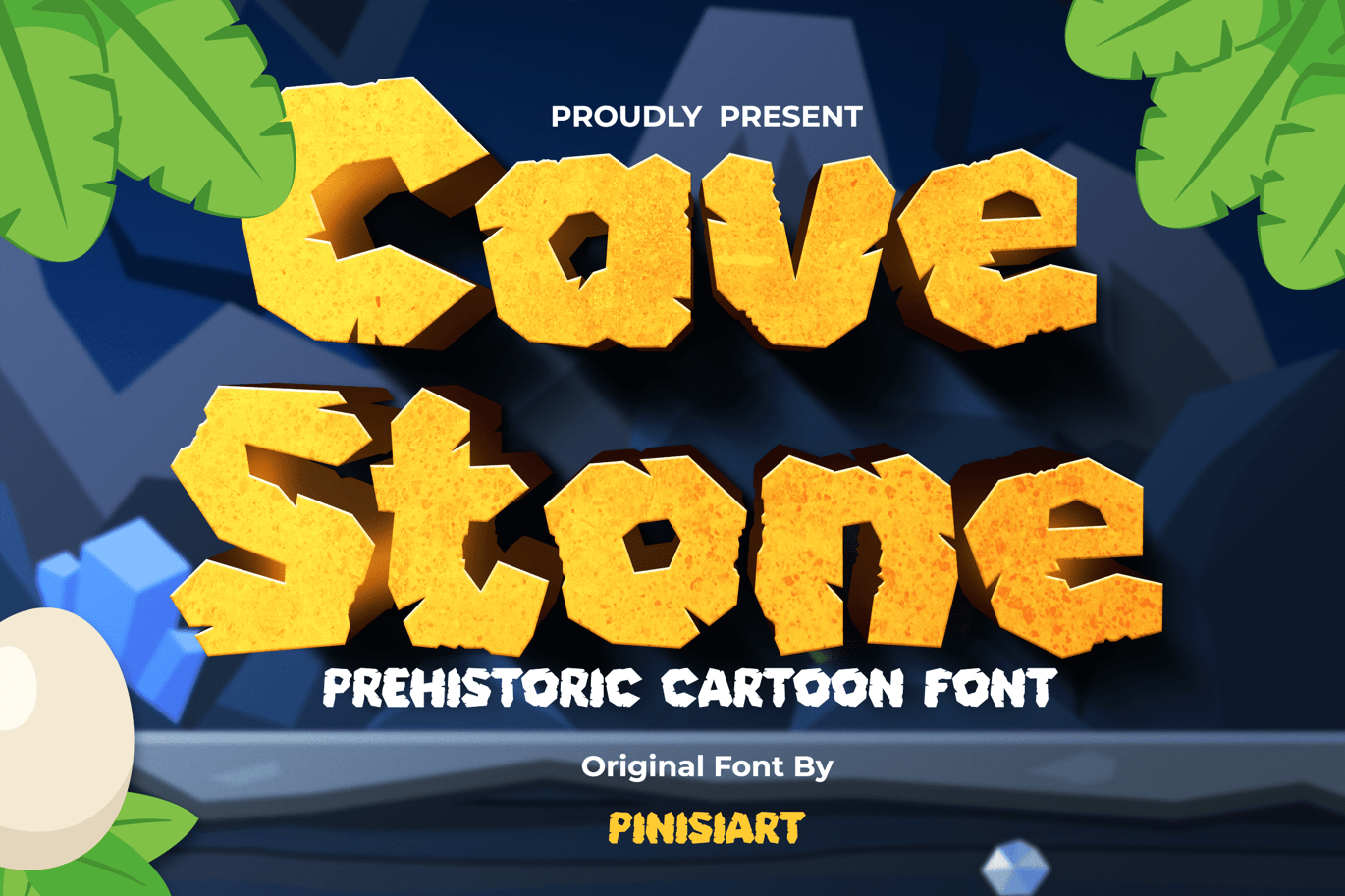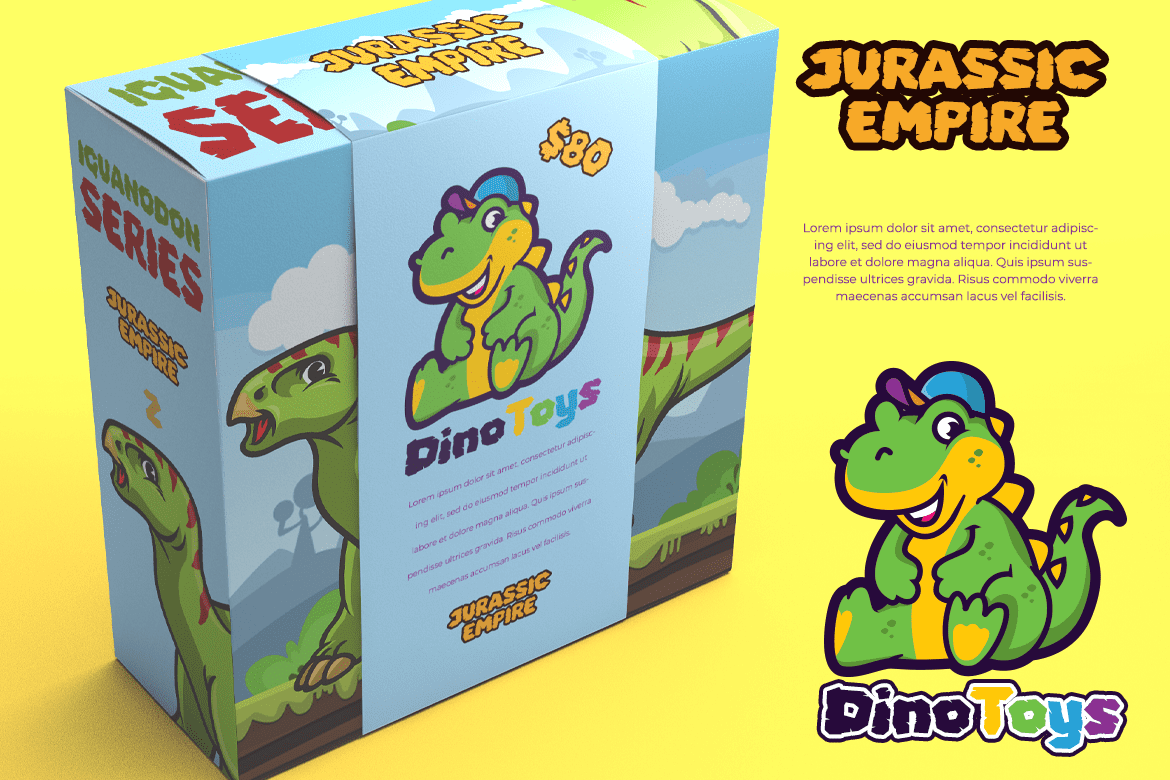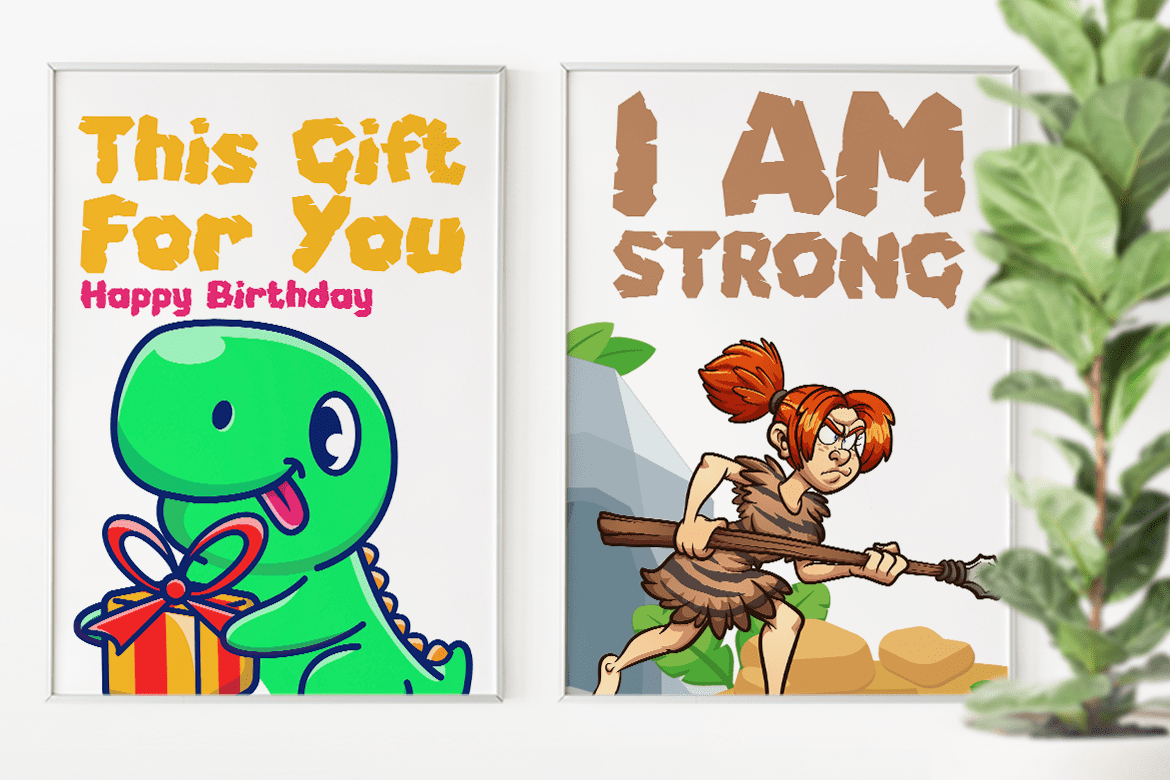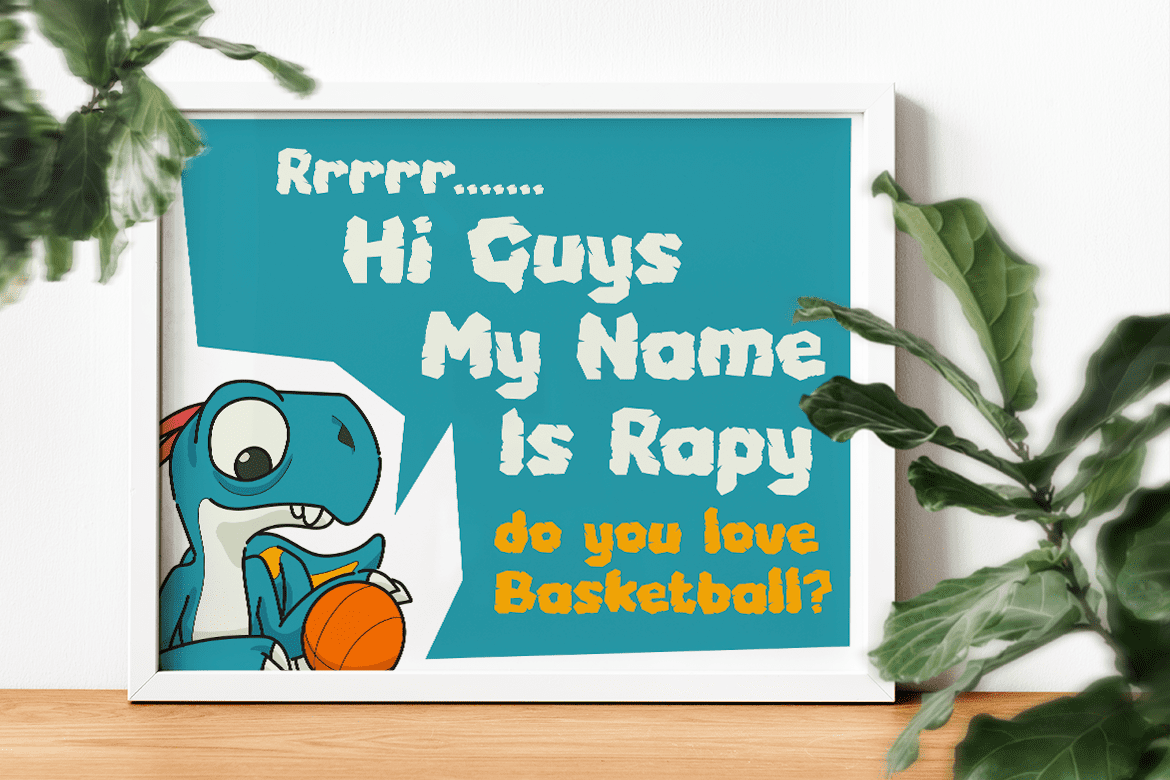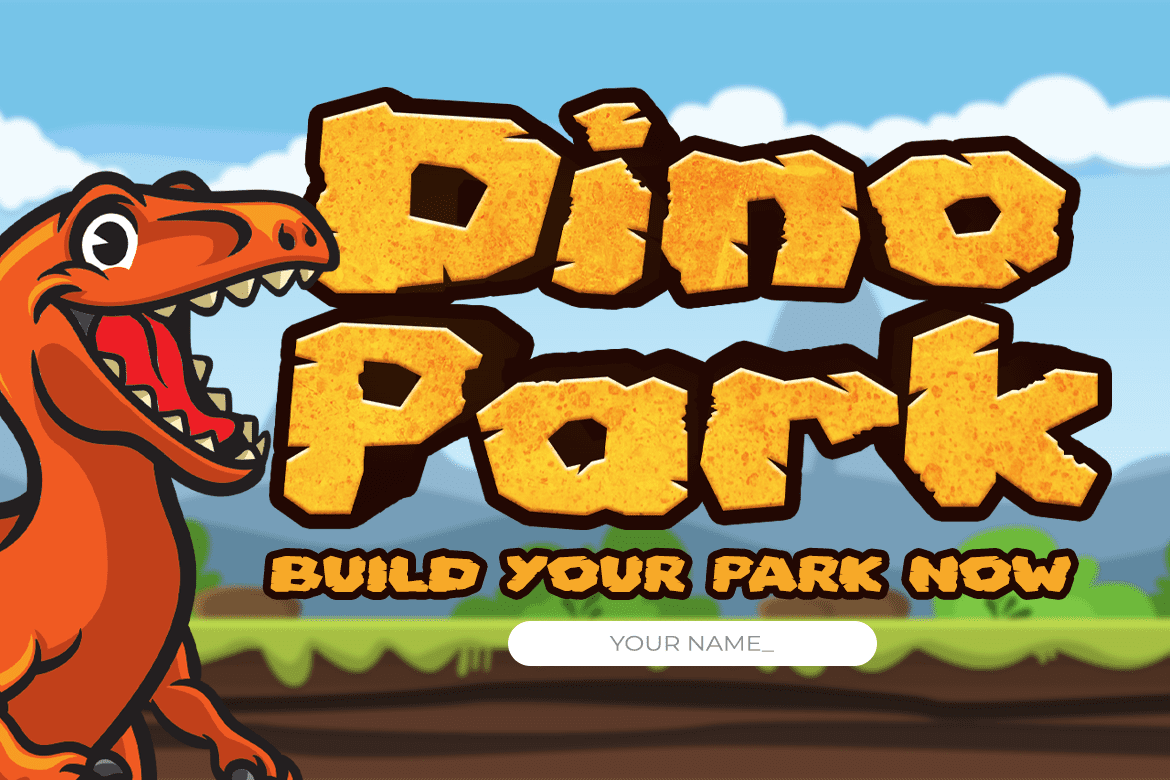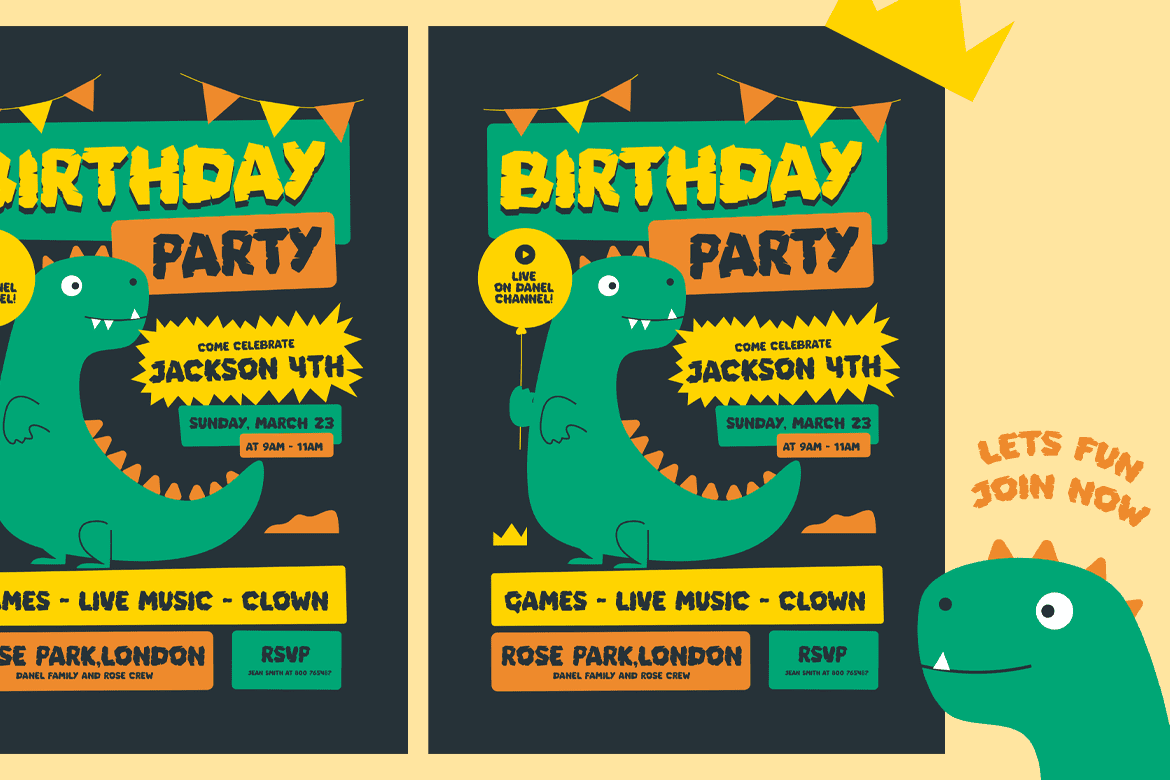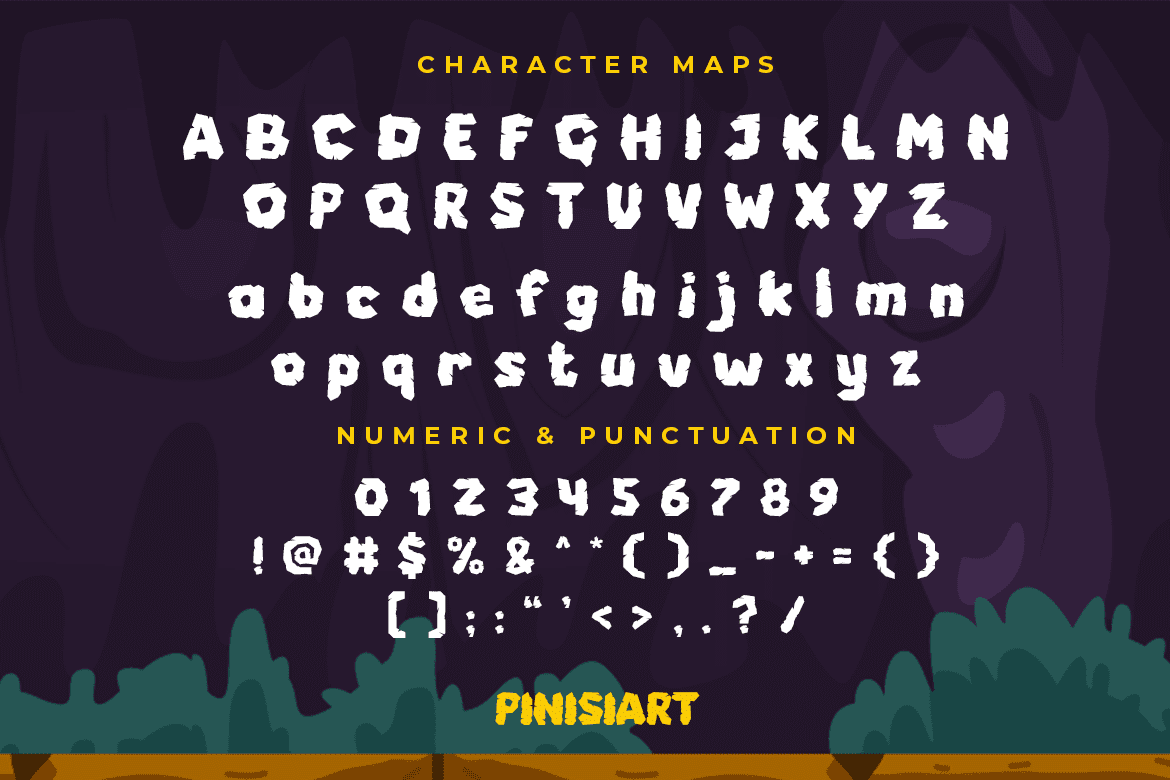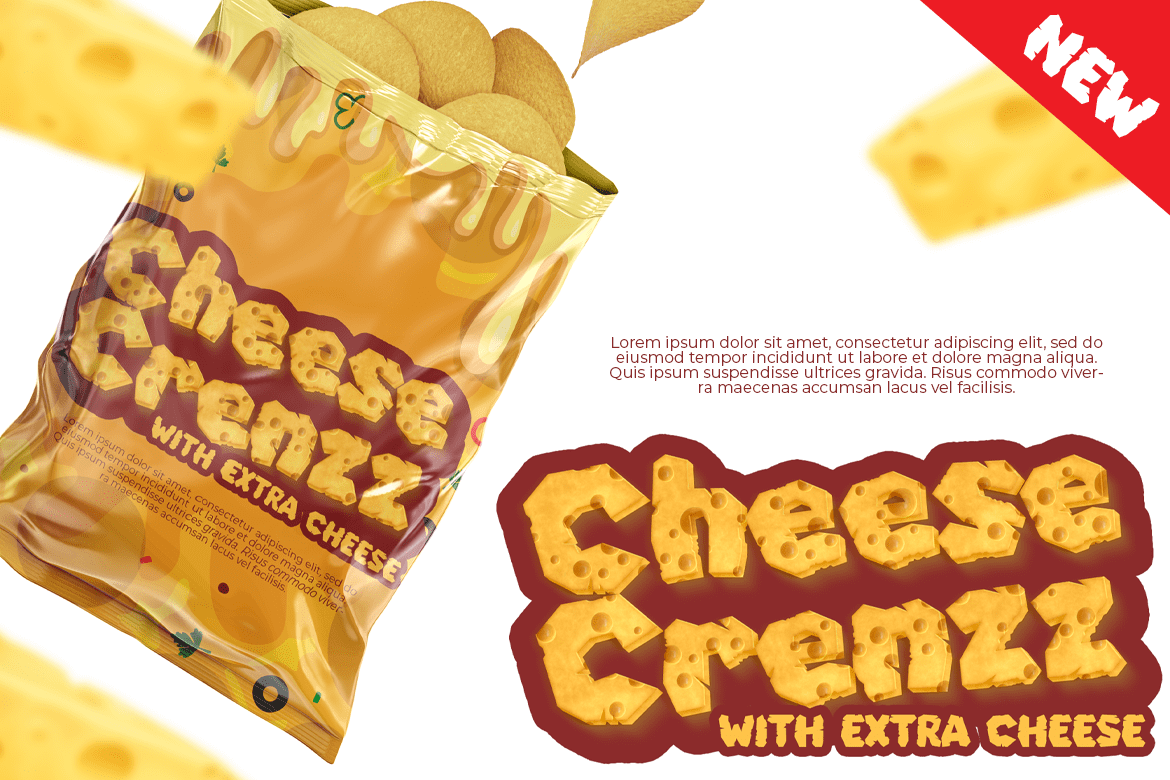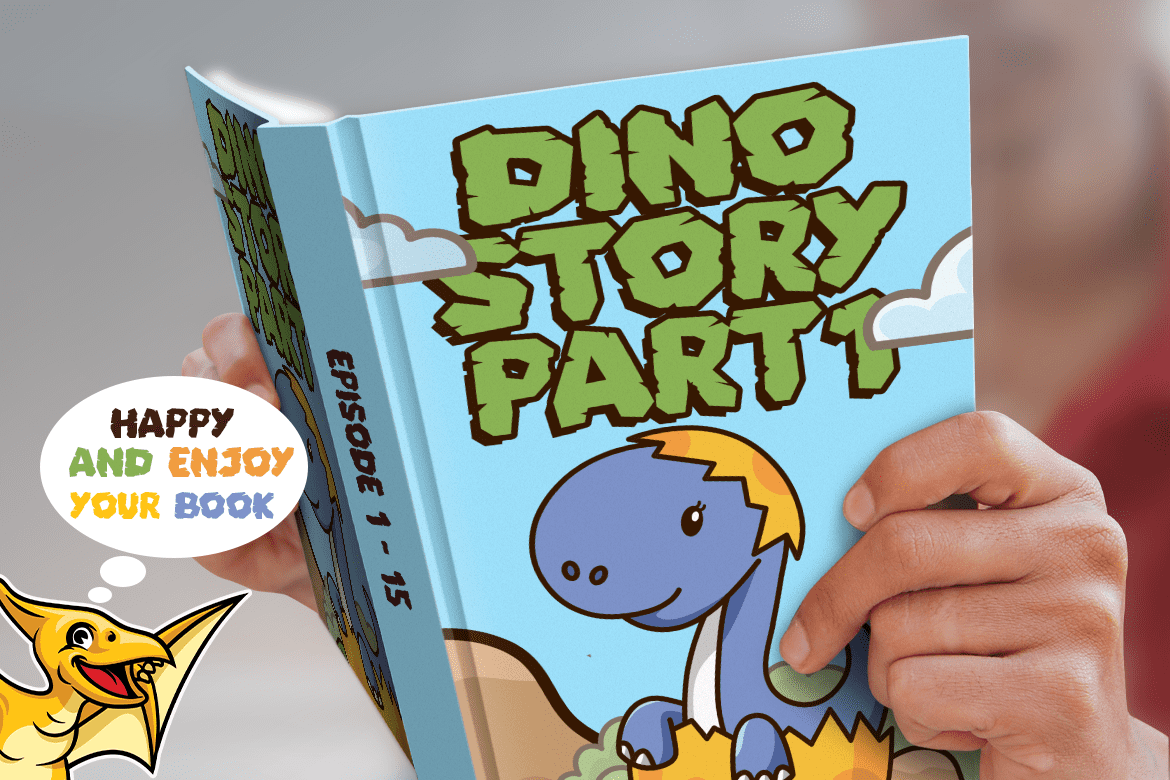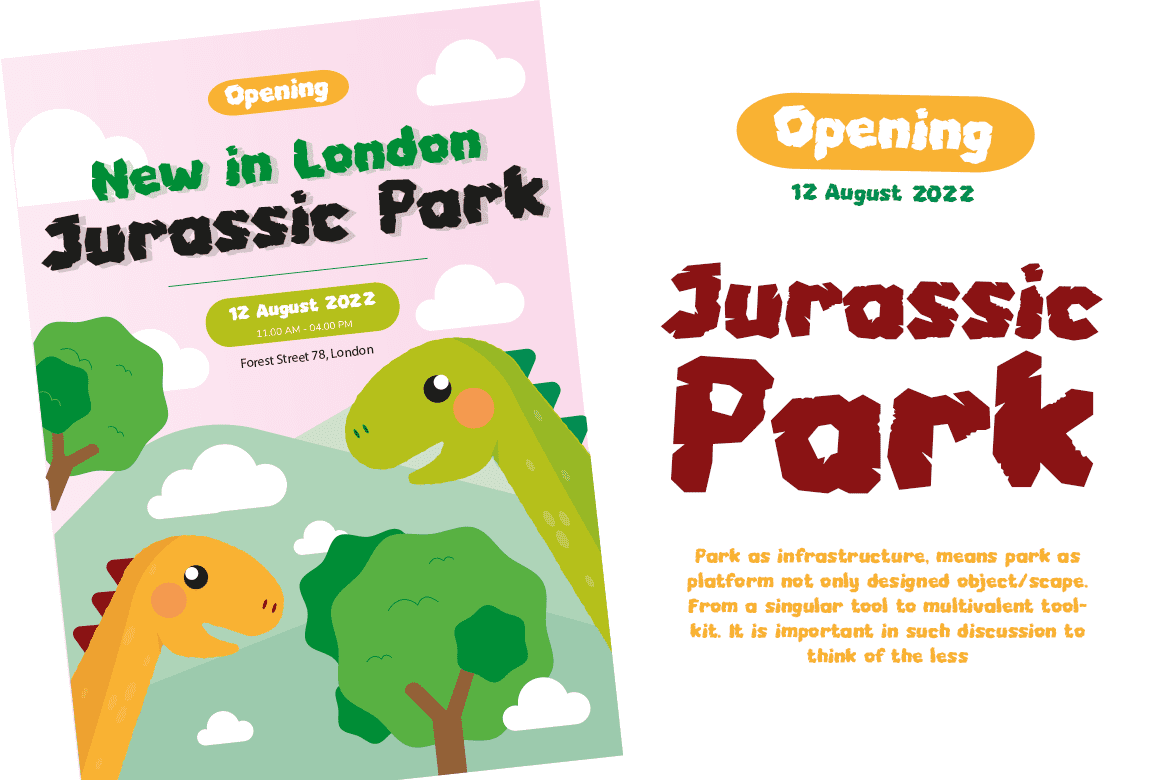
Cave Stone – prehistoric cartoon font
It’s look like from a prehistoric era, where dinosaurs, mammoth, and all that giant animal still roaming the ice world.
Cave Stone bring all that memories come back to libe.